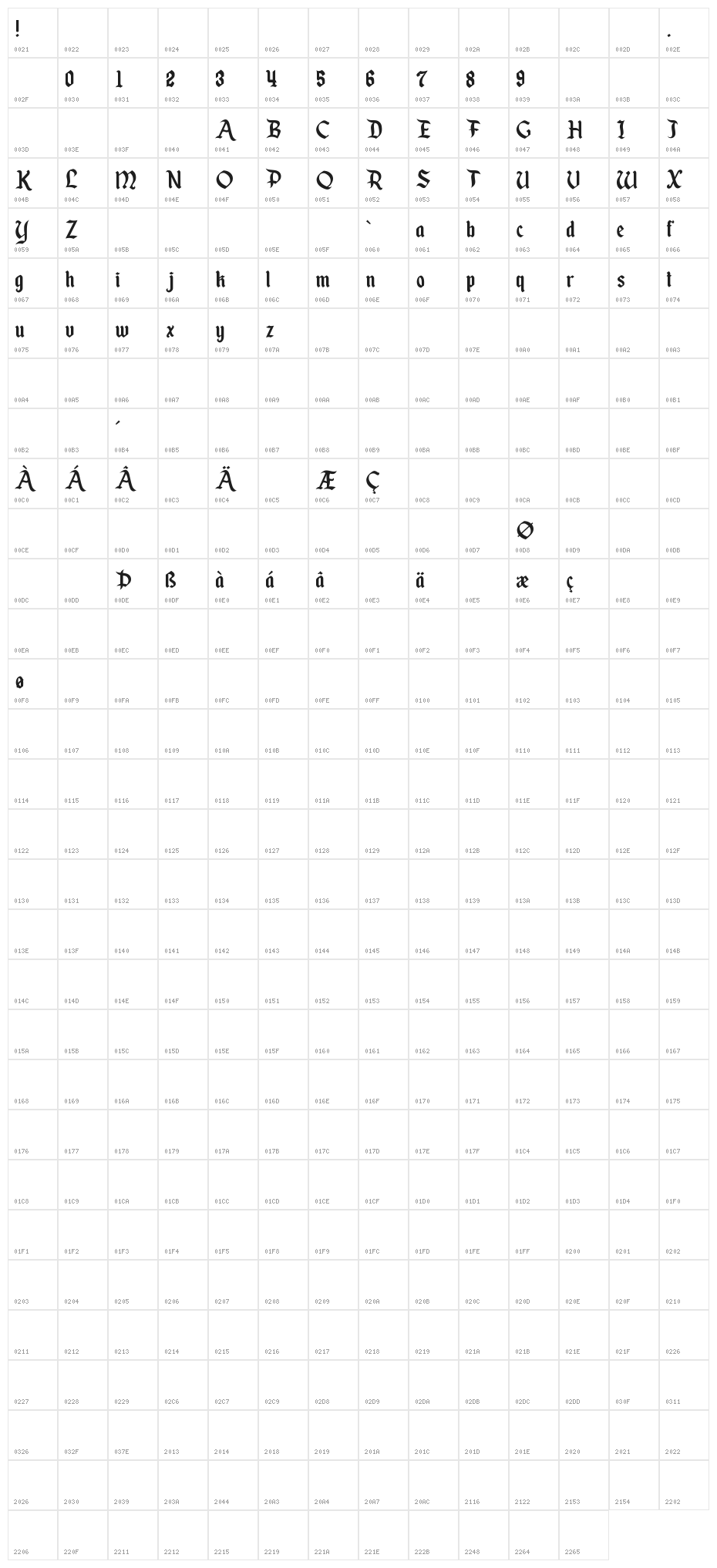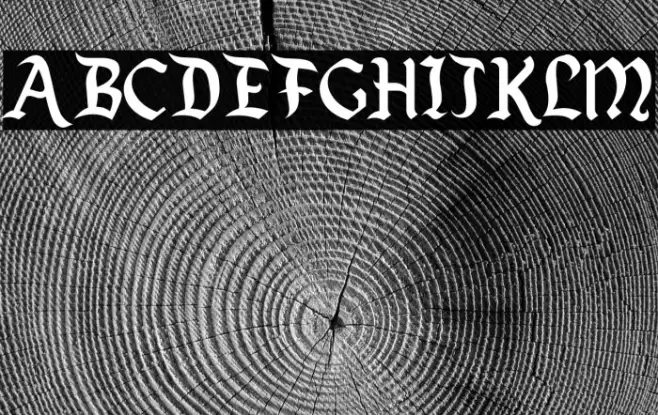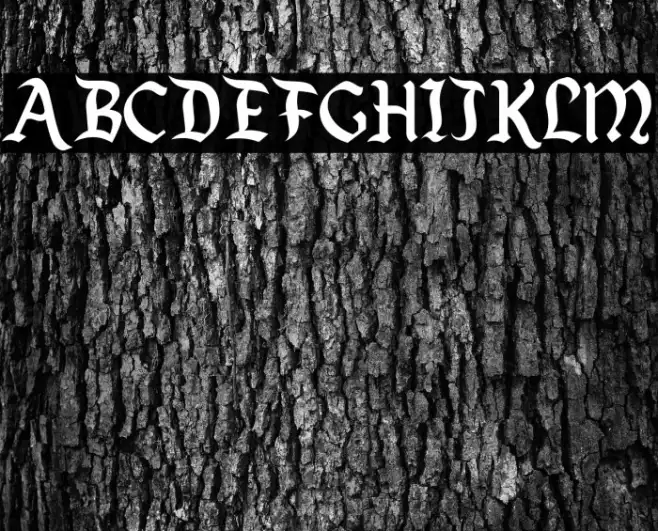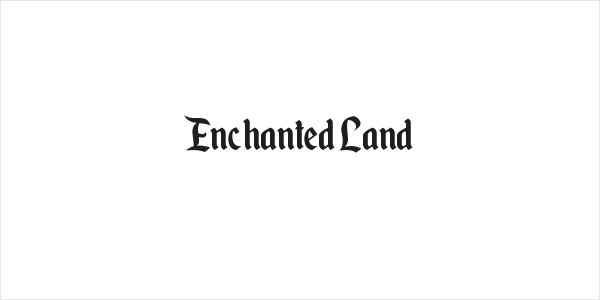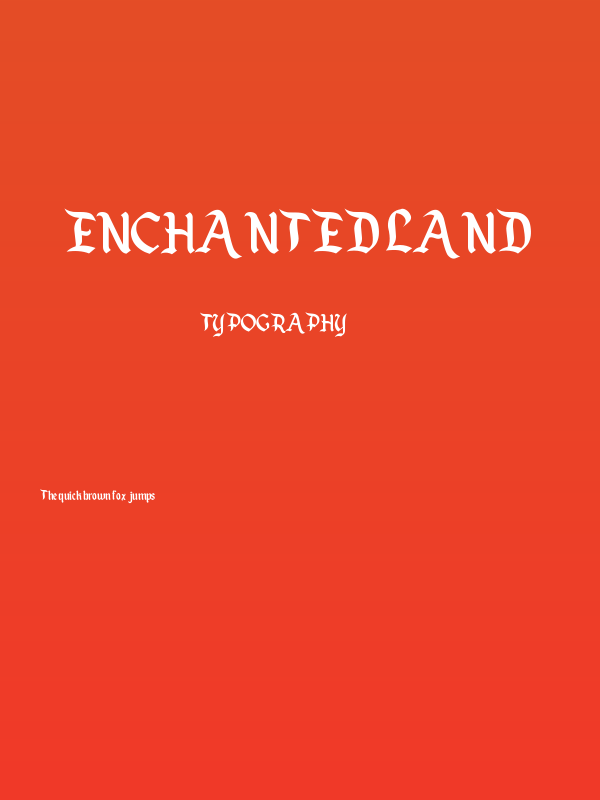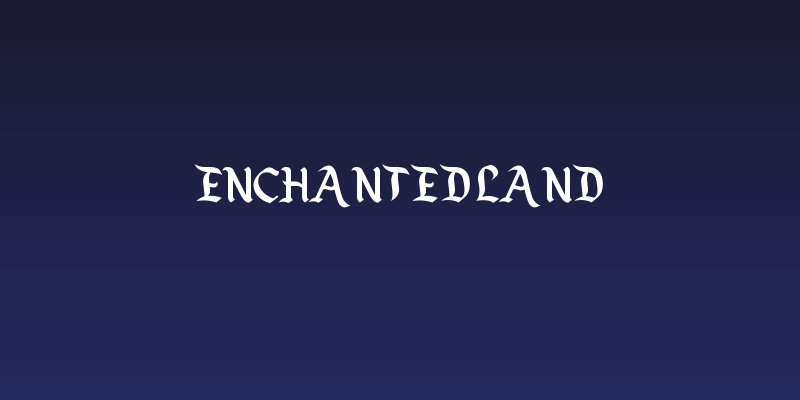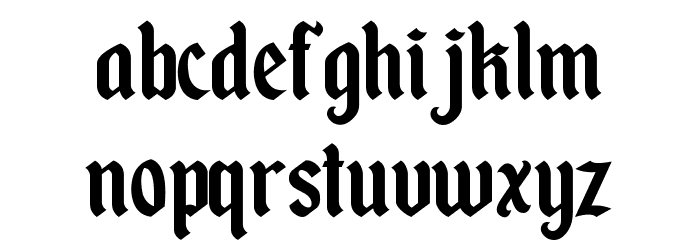
Enchanted Land Font
Enchanted Land Description
This font features a classic blackletter style, characterized by its ornate and intricate letterforms. The uppercase letters exhibit sharp, angular strokes with dramatic curves, while the lowercase letters maintain a consistent style with a slightly more rounded appearance. The numbers follow the same aesthetic, providing a cohesive look across all characters. The special characters, including punctuation marks, are designed to complement the overall medieval and gothic feel of the font. This typeface evokes a sense of tradition and history, making it ideal for projects that require a touch of elegance and formality.
| Use Case | Headlines, Logos, Decorative text |
| Proposed Projects | Suitable for historical documents, invitations, certificates, book covers, and branding that requires a traditional or gothic touch. |